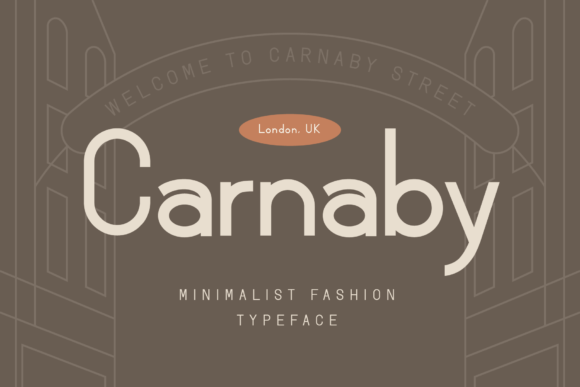
Introducing Carnaby, the epitome of elegance and sophistication in the realm of typography. This minimalist sans serif font, meticulously crafted by the masters at Bekeen.co, exudes a timeless charm that will captivate your audience from the very first glance.
Step into a world of effortless style and undeniable impact with Carnaby. Its clean lines and graceful curves dance harmoniously across the page, creating an unforgettable impression that lingers in the minds of your readers. Whether you're crafting captivating headlines, designing eye-catching websites, or seeking the perfect touch for your advertising campaigns, Carnaby rises to the occasion with unwavering poise and distinction.
Unleash your creativity and let Carnaby elevate your designs to new heights. Its versatile nature seamlessly adapts to a myriad of applications, making it an indispensable tool for designers of all levels. Transform your digital presence with the alluring charm of Carnaby, leaving a lasting impression that sets you apart from the ordinary.
Carnaby, the font that speaks volumes without uttering a single word. Its minimalist beauty transcends the boundaries of language, appealing to a global audience with its universal appeal. Embrace the power of simplicity and let Carnaby carry your message with unparalleled elegance and grace.
In a world saturated with noise and clutter, Carnaby emerges as a beacon of clarity and sophistication. Its understated allure cuts through the chaos, capturing attention and conveying your ideas with impeccable precision. Trust Carnaby to elevate your designs, ignite your imagination, and leave an enduring legacy of timeless beauty.